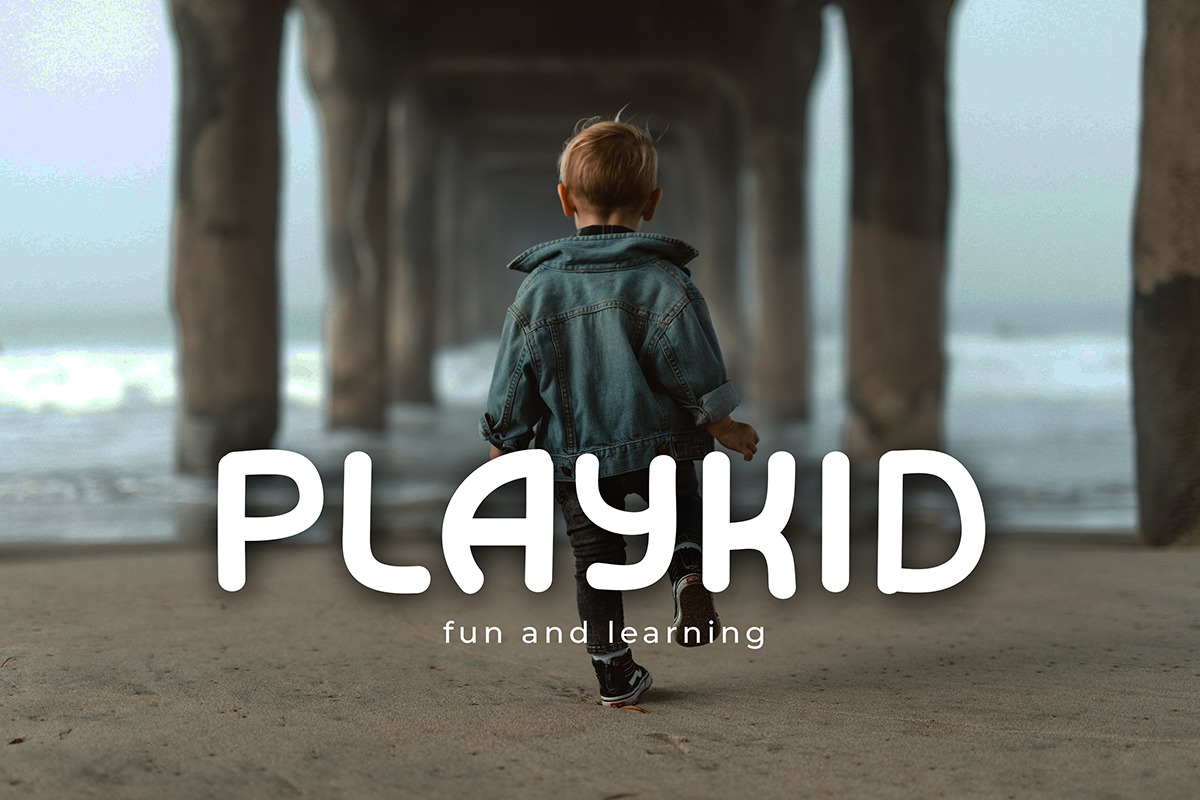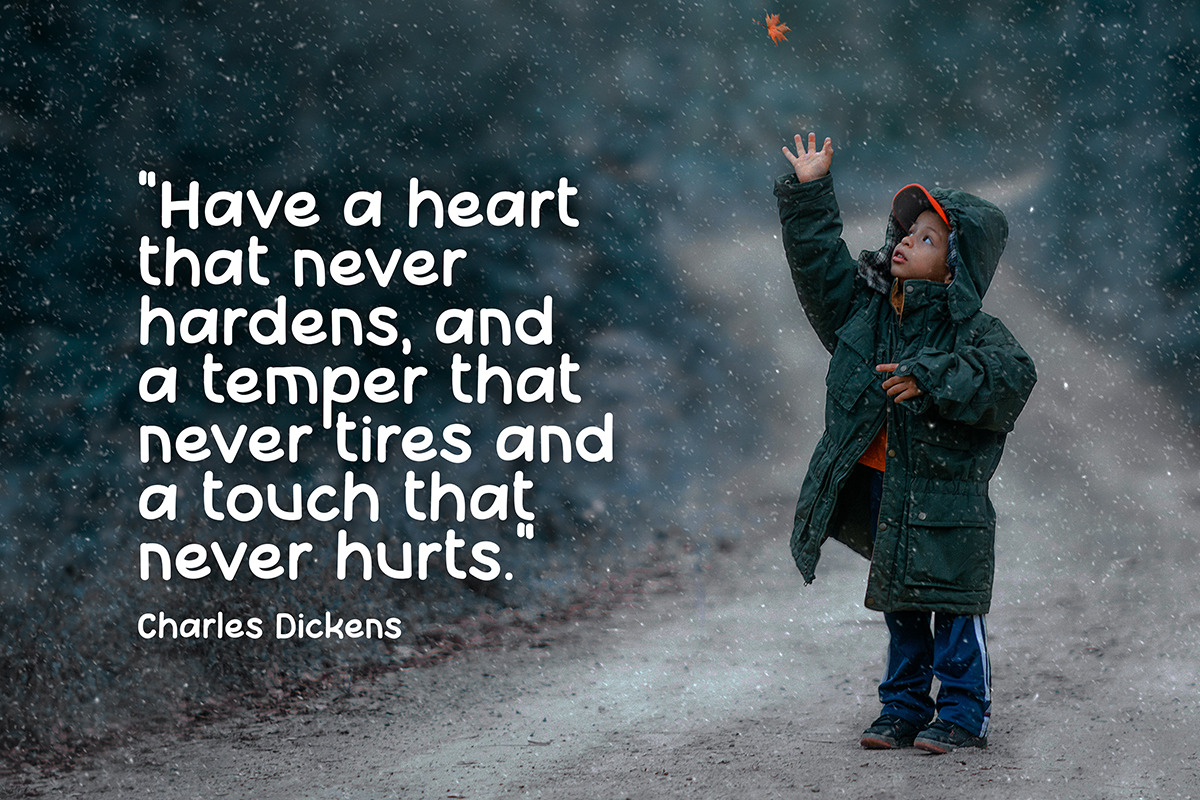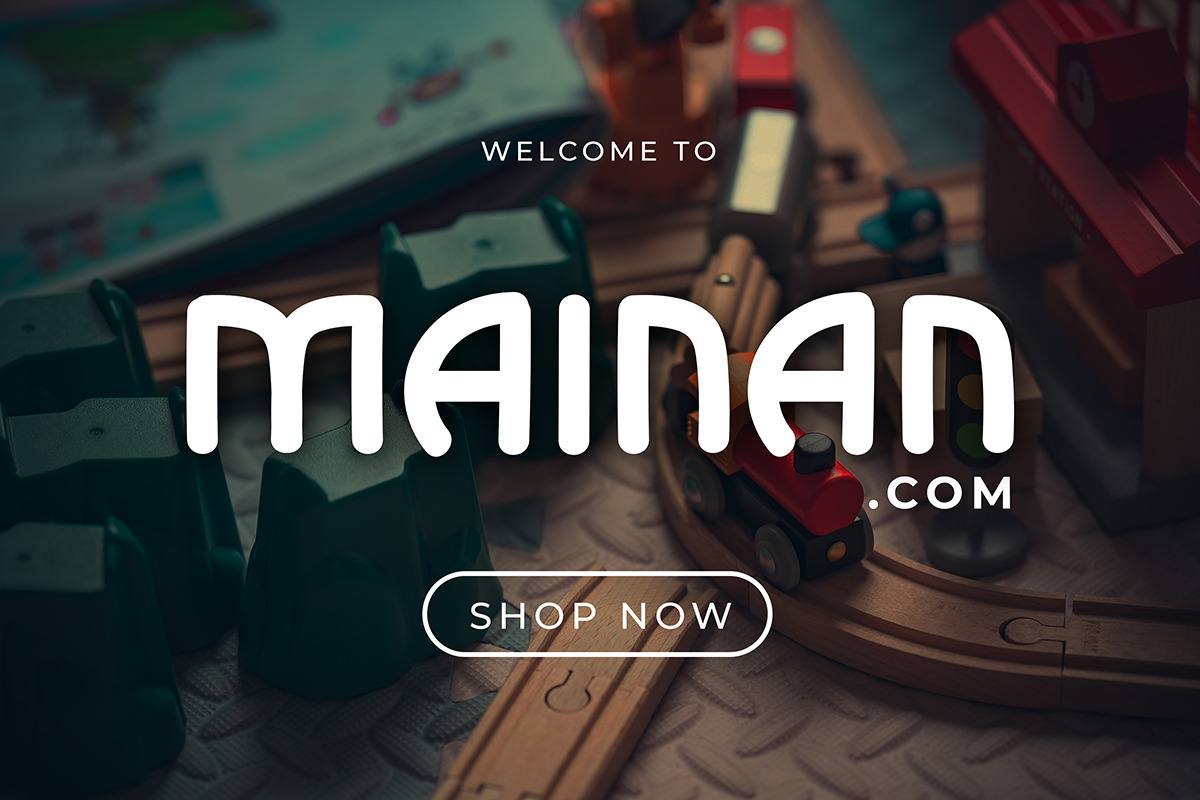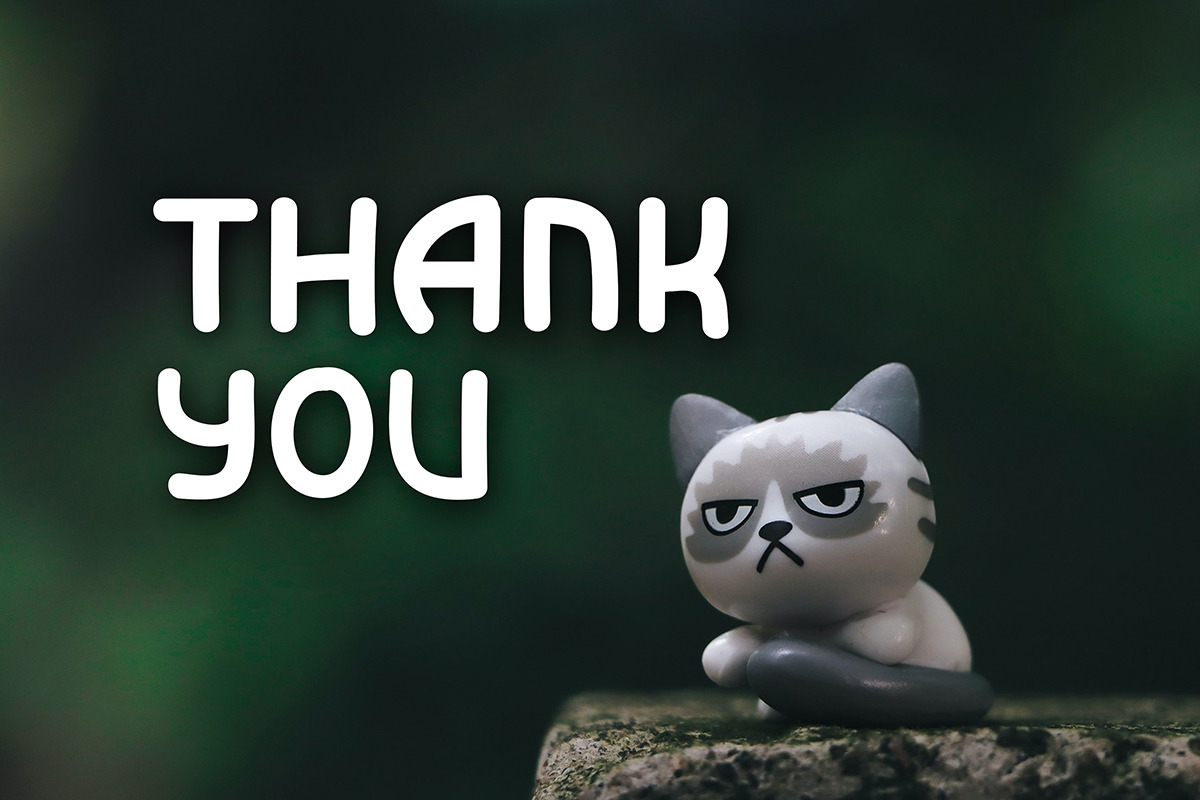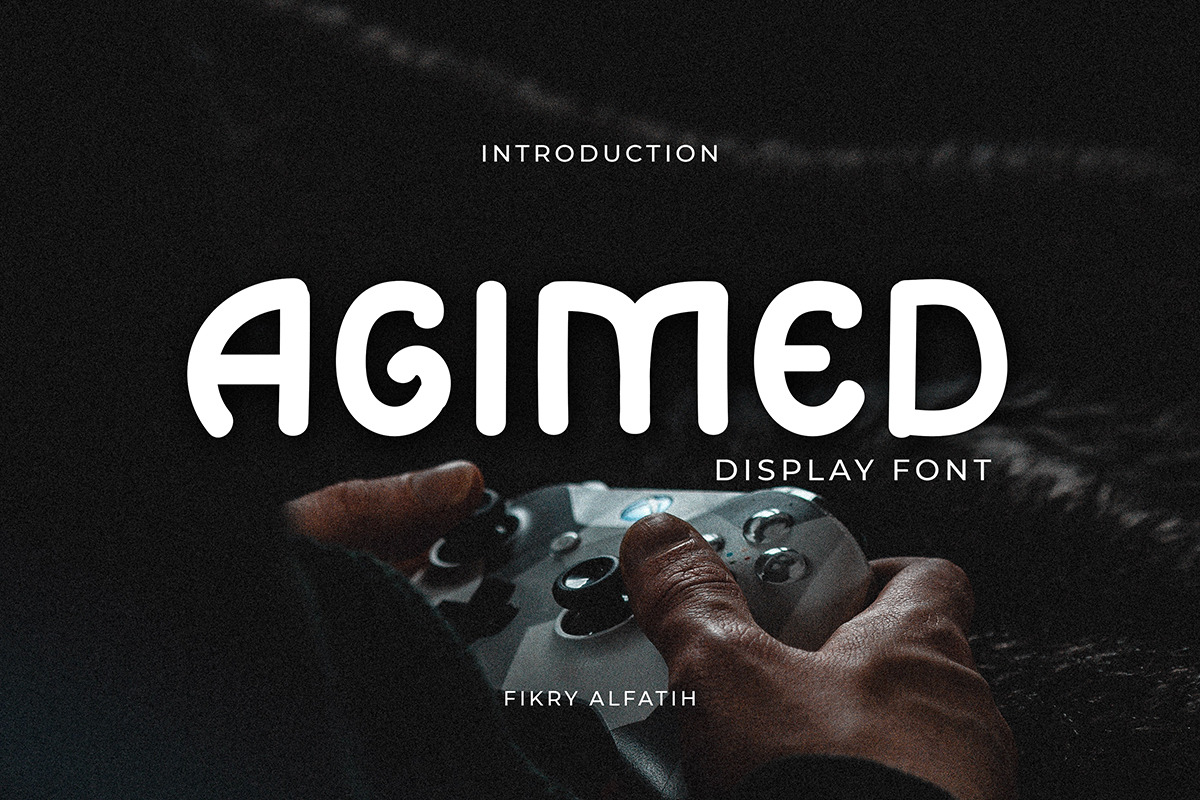
Agimed - Display Font
Agimed is a fun and playful display font with a cool rounded shape. This font is perfect for kids, greeting cards, invitations, posters, websites, book covers, quotes, logos, presentations, headlines, etc.